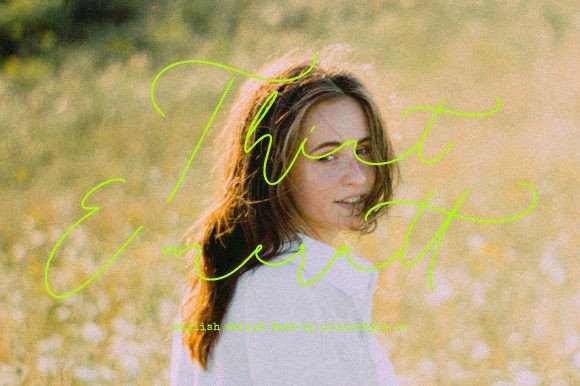
Thrill your designs with Thint Emeratt, a captivating script font that radiates elegance and charm! Crafted by Prioritype, this handwritten gem is an exquisite fusion of timeless beauty and modern sophistication, making it the perfect choice for creating breathtaking designs that leave a lasting impression.
Thint Emeratt's graceful curves, delicate swashes, and authentic hand-drawn texture bring a touch of originality and warmth to your projects. Whether you're creating enchanting wedding invitations, alluring business cards, unique logos, or heartwarming personal messages, this font will add a touch of artistic flair that captivates and engages.
Unleash your creativity and indulge in the limitless possibilities that Thint Emeratt presents. Let your designs tell a story, evoke emotions, and create connections that resonate with your audience. Embrace the beauty of handwritten artistry and transform your designs into masterpieces that radiate elegance and charm.
Dive into the world of Thint Emeratt and discover the endless ways to captivate and inspire. Its versatility knows no bounds, making it an essential tool for designers, creatives, and anyone seeking to add a touch of magic to their projects. Elevate your designs, touch hearts, and create memories that last a lifetime with Thint Emeratt.